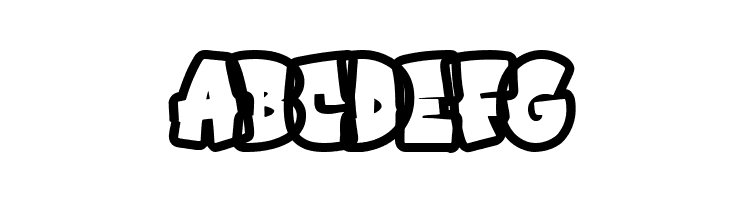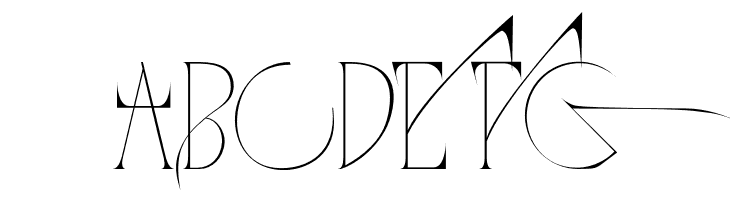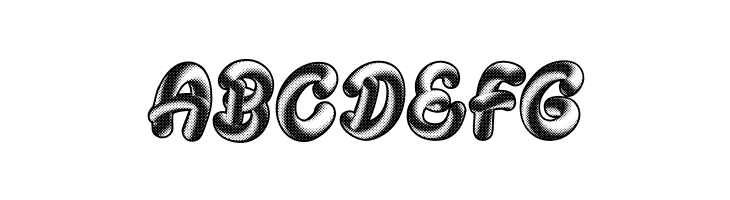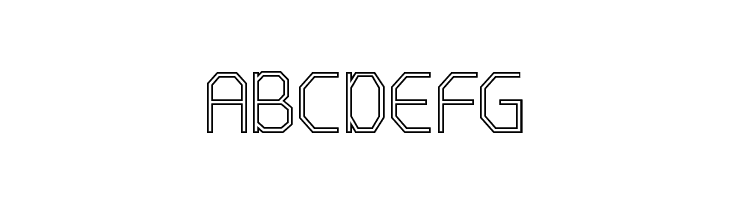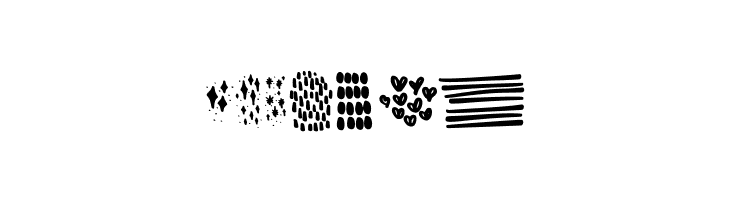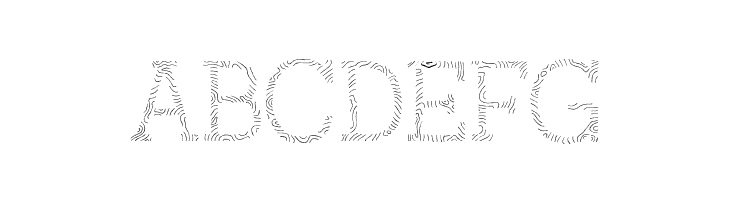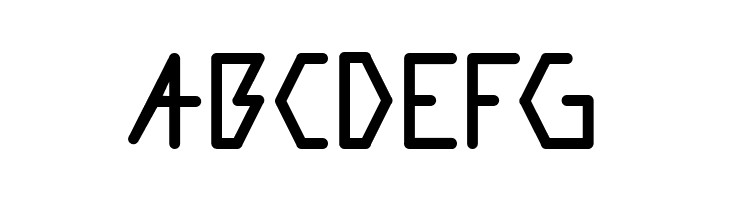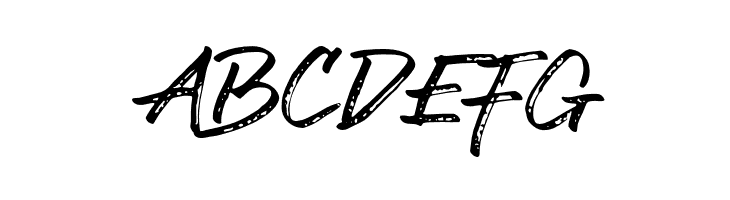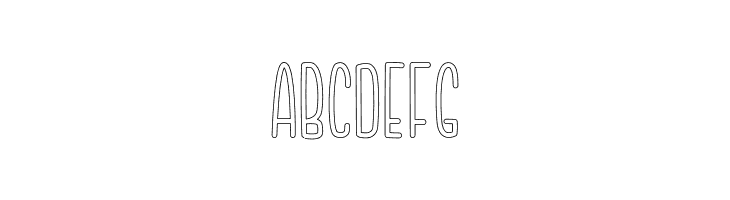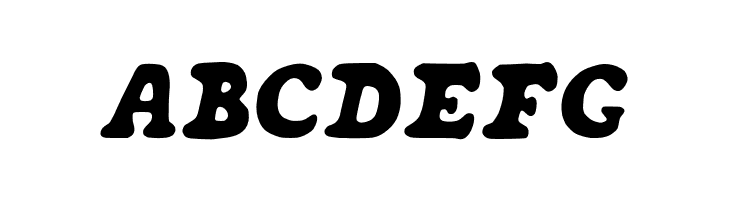
A bold, playful outline font with a cartoonish and energetic style.
A decorative and artistic font with elongated strokes and sharp serifs.
A bold, italicized, and decorative font with a three-dimensional, organic style.
A geometric, outline font with a modern, futuristic style.
A flowing, cursive italic font with elegant, handwritten characteristics.
A modern, geometric sans-serif font with clean lines and balanced spacing.
A collection of abstract, artistic brush stroke patterns.
A modern, italic font with geometric precision and a dynamic slant.
A modern, geometric font with rounded edges and consistent stroke width.
An abstract, artistic font with bold, sweeping strokes and unique character forms.
A detailed slab serif font with intricate, map-like line textures.
A decorative font with intricate line patterns resembling topographic maps.
A geometric, angular font with a modern and technical style.
A modern, geometric font with smooth, rounded edges and consistent stroke widths.
A playful, hand-drawn outline font with a textured, artistic style.
A textured, hand-drawn font with a dynamic brush-like style.
A bold, geometric font with a modern and impactful style.
A bold, italic, handwritten-style font with smooth curves and a playful aesthetic.
A modern outline font with tall, narrow characters and consistent stroke width.
A bold, playful serif font with vintage charm and modern curves.
A hand-drawn, chalk-like font with textured, dynamic strokes.
A bold, dynamic font with a modern yet retro flair.
A bold, angular font with a modern, cut-out style.
A playful, decorative font with floral embellishments and bold strokes.
A playful and whimsical font with rounded, elongated letterforms and heart-shaped accents.
A bold, modern font with a geometric and condensed style.
A sleek, modern, and thin italic font with elegant lines and geometric shapes.
A pixelated, blocky font with a retro digital aesthetic.
A light, hand-drawn font with a whimsical and artistic style.
A modern serif font with elegant lines and balanced proportions.
A geometric, futuristic font with sharp angles and a modern aesthetic.
A bold, brush-style font with a dynamic and hand-painted appearance.
A playful, informal handwritten font with smooth, rounded edges.